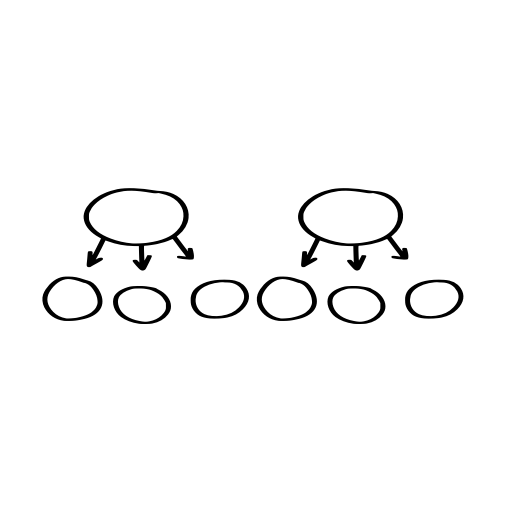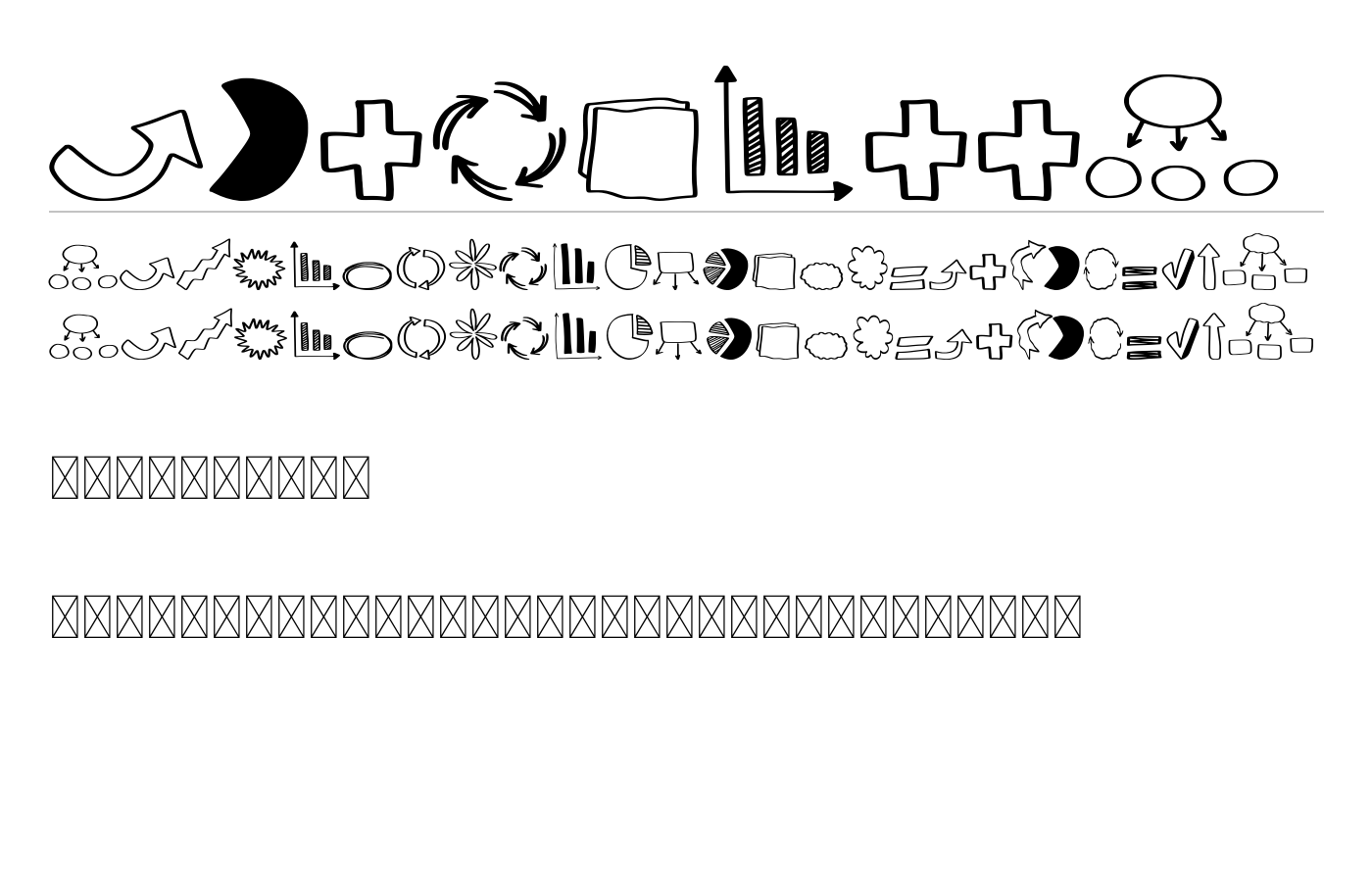
Businessa is a playful, hand-drawn icon font featuring simple, sketch-style graphics that resemble business and chart elements. With its casual and informal feel, it works well for presentations, infographics, and creative projects where a friendly and approachable visual tone is desired. This font adds a whimsical touch to communication materials without the formality of traditional typefaces.
Businessa Font
About Businessa Font